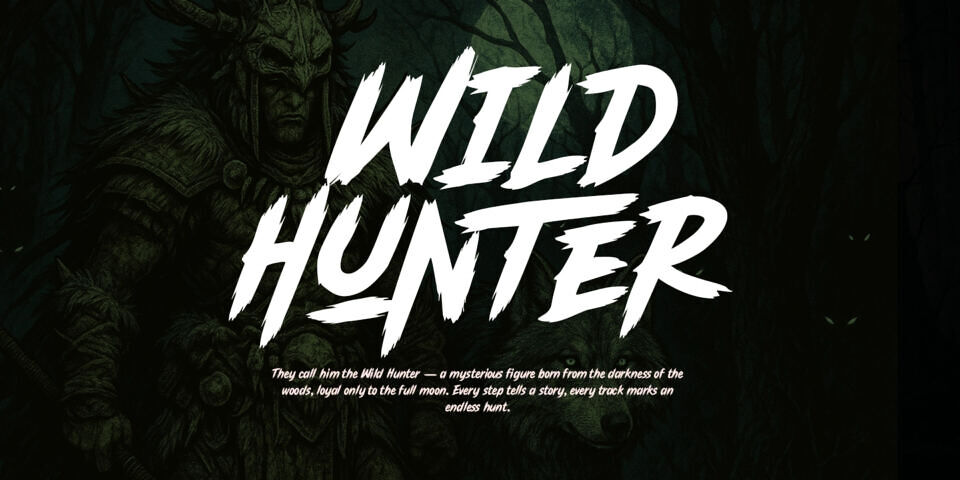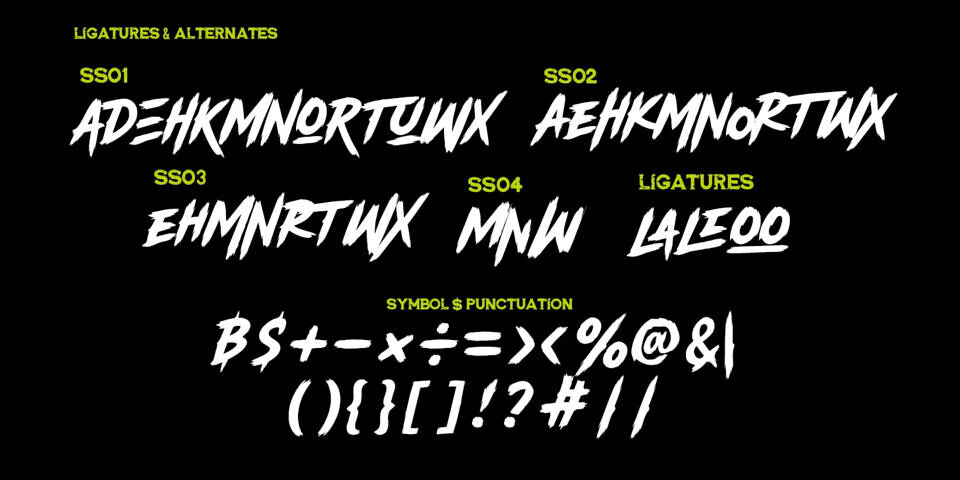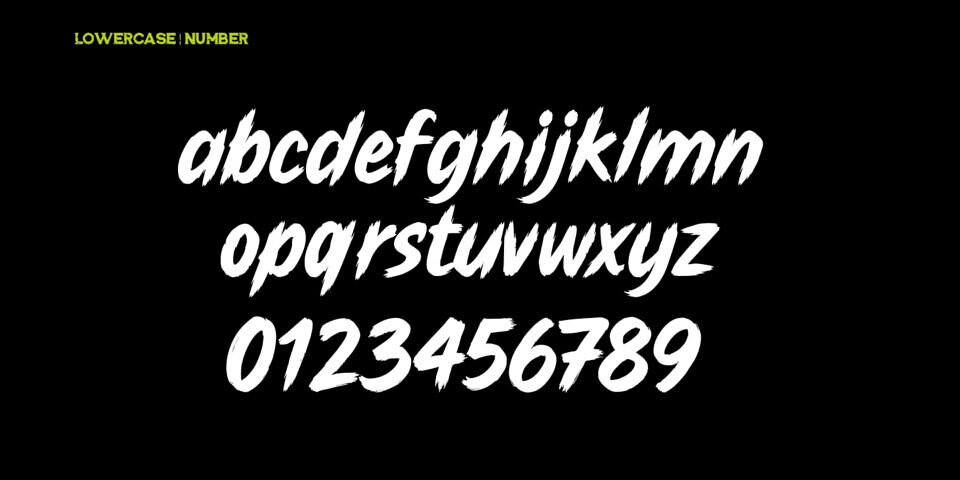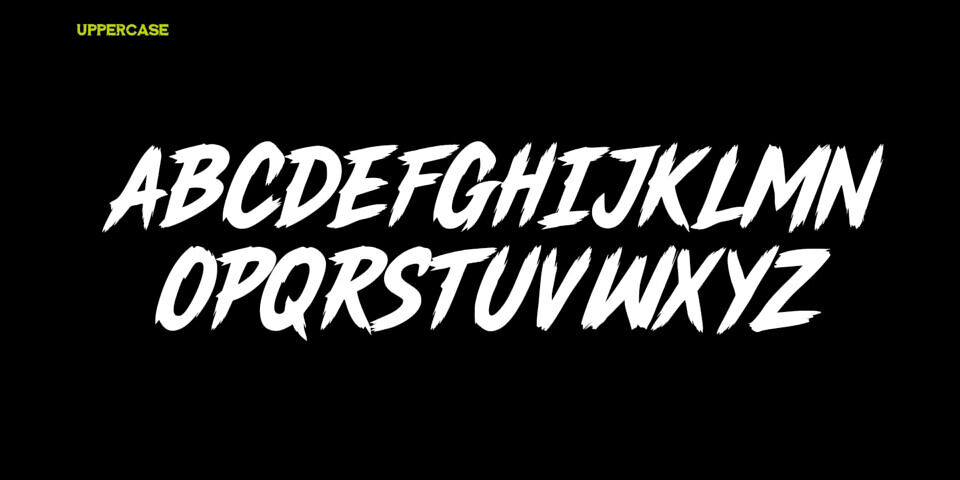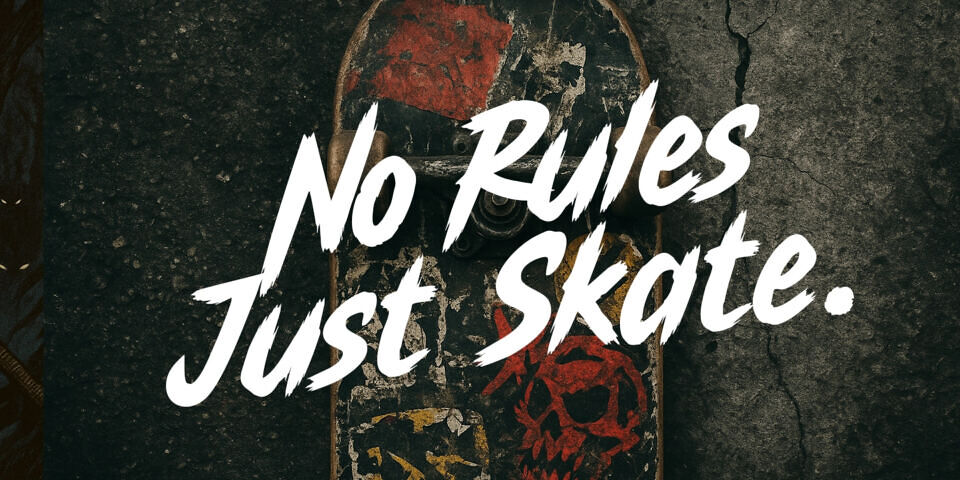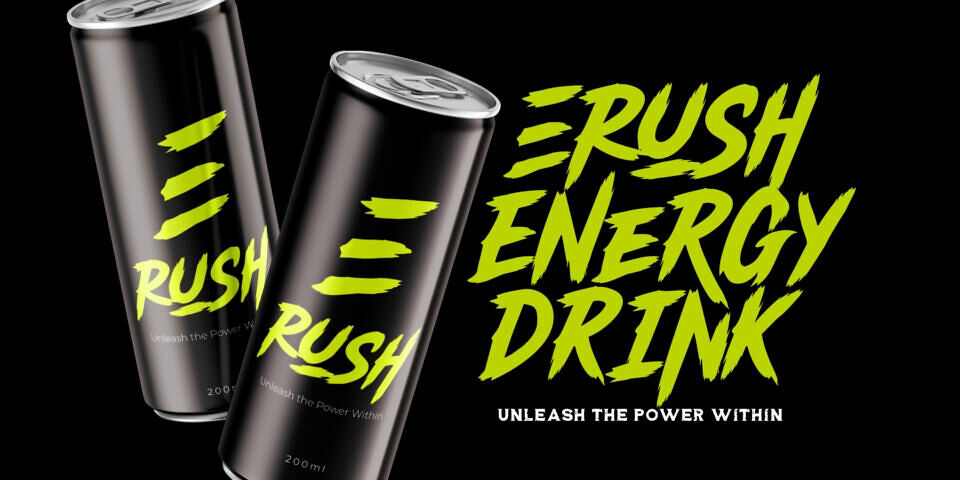
Rowler Wild Font
Rowler Wild is a bold brush script typeface born from raw energy, restless creativity, and the spirit of the wild. Every stroke feels alive — rough, spontaneous, and full of motion — as if painted by hand on rugged canvas under the open sky.
Designed to capture a fearless, outdoor-inspired aesthetic, Rowler Wild brings a sense of authenticity and adventure to your typography. Its imperfect brush texture adds a human touch, making every word feel crafted rather than constructed. Whether you’re creating bold logos, energetic posters, apparel graphics, product packaging, or sports and music branding, this font instantly sets your design apart with untamed personality.
Designed by: Ardyana Types